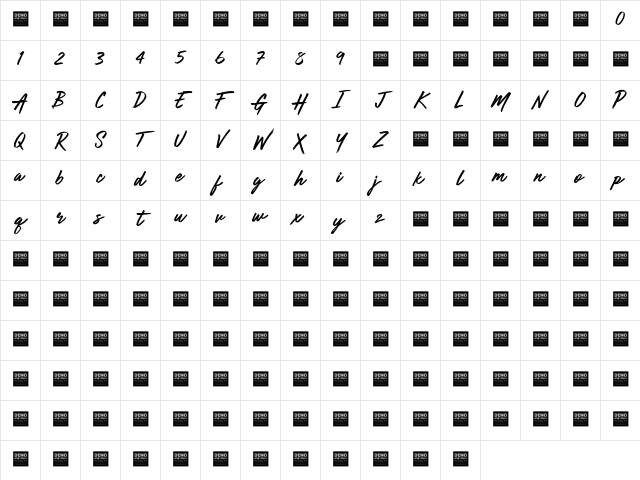
Complete Anything Goes - Demo Regular glyph index. Displaying only characters natively supported by Anything Goes - Demo Regular font.
Anything Goes - Demo is a composed and adaptable typeface that performs quietly and consistently across a wide range of design contexts. Its slender proportions lend an understated elegance to any composition.